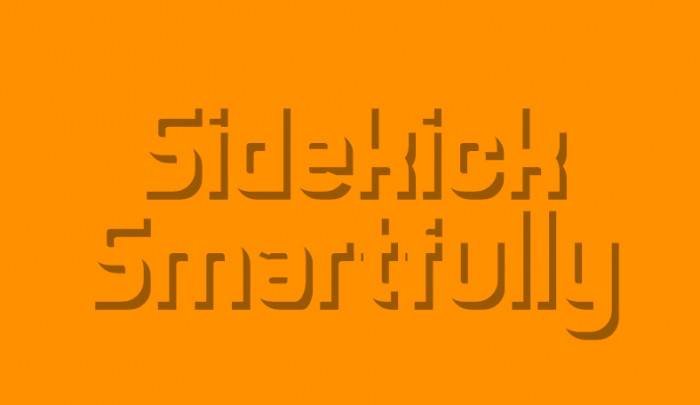
Amber 76 is a Various font that uses for Posters, pictures, videos and thumbnails designed by SwedishTypeCorporation. A font was from 80s, Made with other tags Retro, Clean, Sans Serif, and Display.
in Greek Language and Extended Latin B, You can type alternative letters that will use for posters, pictures, videos and thumbnails.